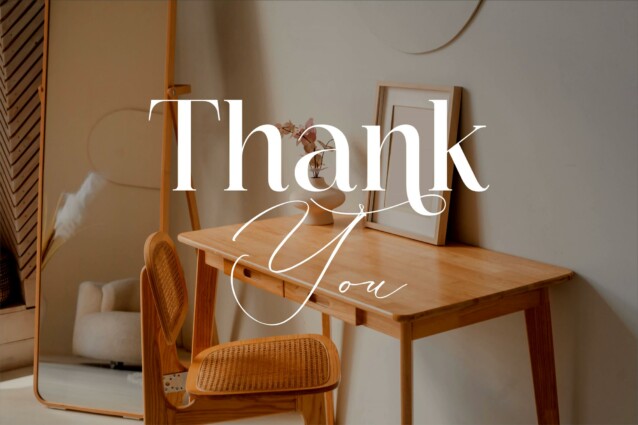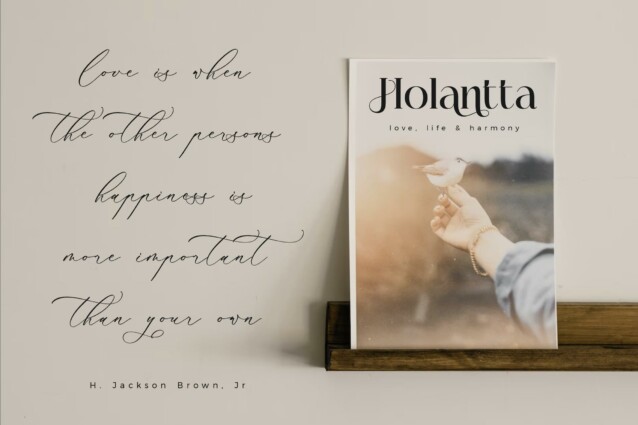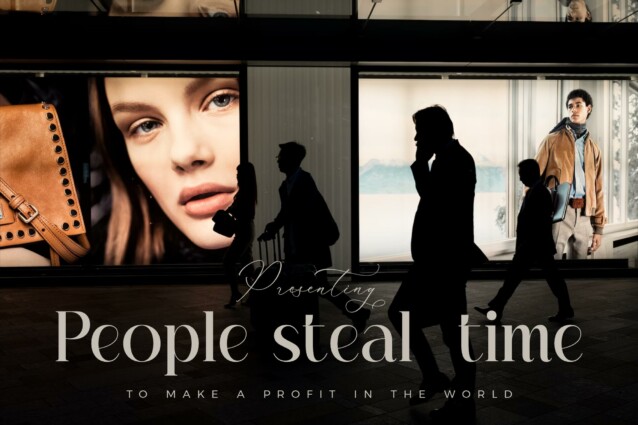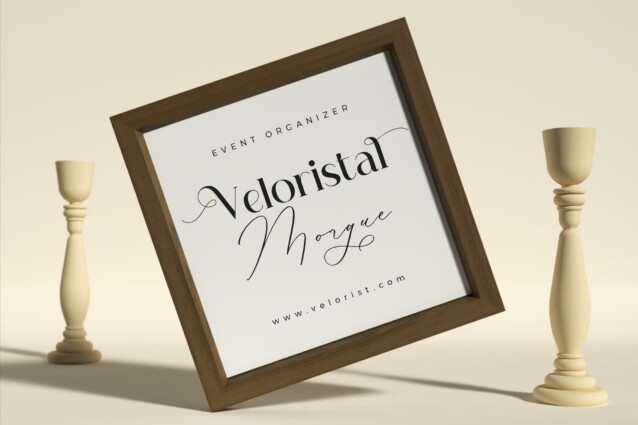
Haglueta Klaristto Font Duo
Haglueta Klaristto Font is a serif and script typeface that has own unique style & modern look. This typeface is perfect for an elegant & luxury logo, book or movie title design, fashion brand, magazine, clothes, lettering, quotes, and so much more.